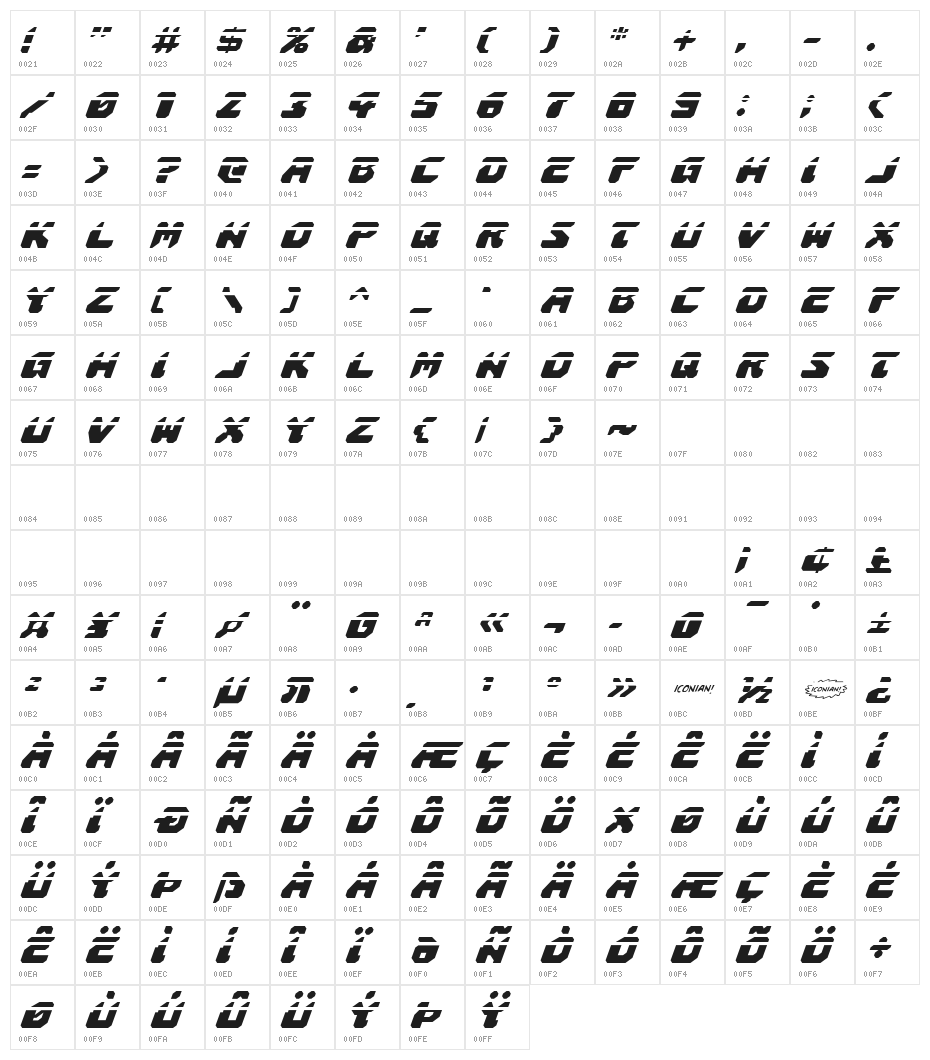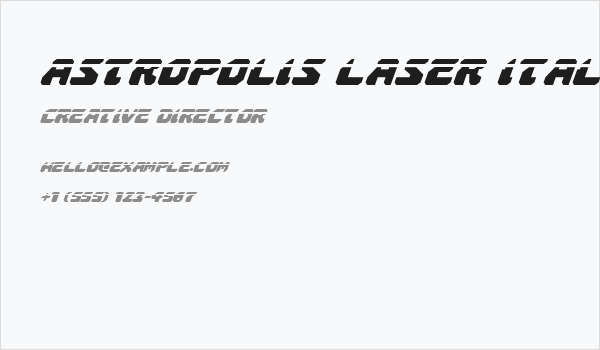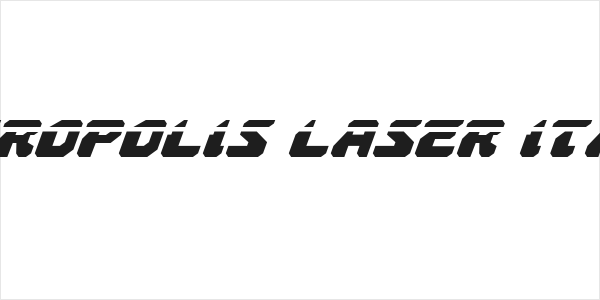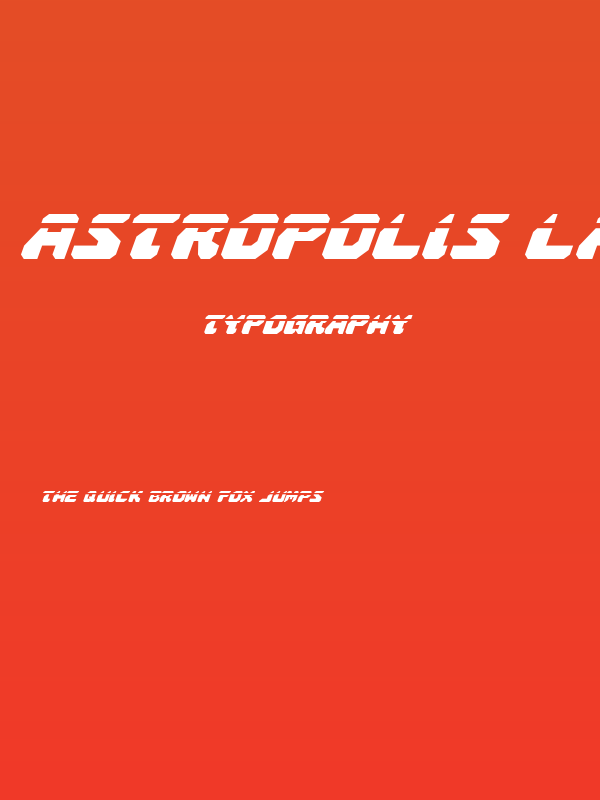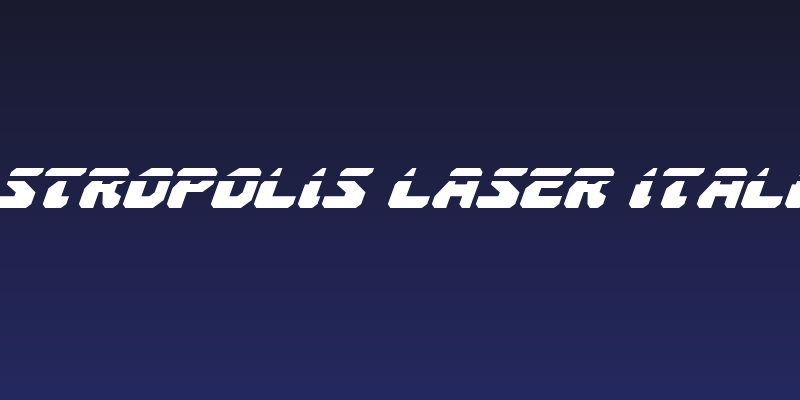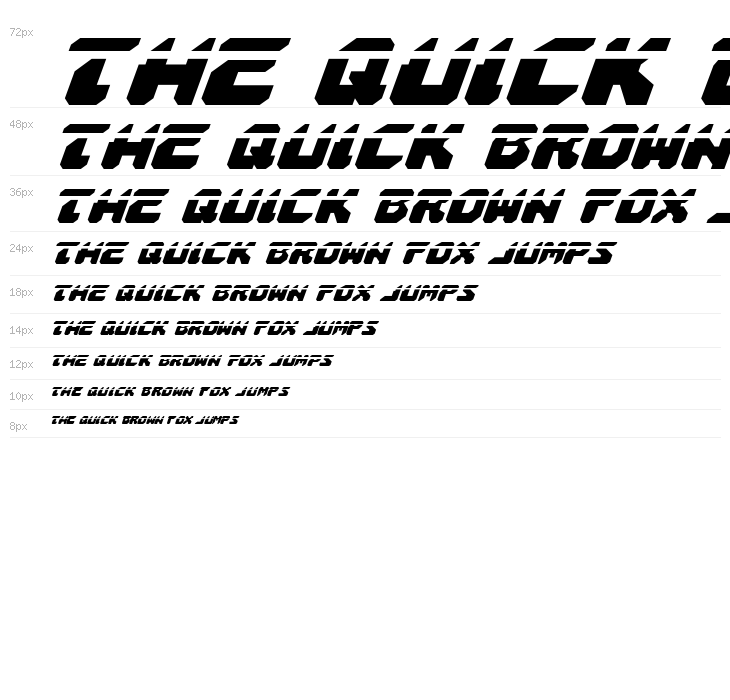
Astropolis Laser Italic Font
Astropolis Laser Italic Description
This font features a futuristic and dynamic design, characterized by its bold and angular letterforms. The italic slant adds a sense of motion and speed, making it ideal for projects that require a modern and energetic feel. The characters are constructed with sharp edges and geometric shapes, giving it a distinctive and edgy appearance. The uppercase and lowercase letters maintain a consistent style, while the numerals and special characters complement the overall aesthetic. This font is suitable for headlines, posters, and branding that aim to capture attention with a contemporary and tech-inspired look.
| Proposed Projects | Ideal for sci-fi themed designs, tech branding, video game titles, and dynamic posters. |